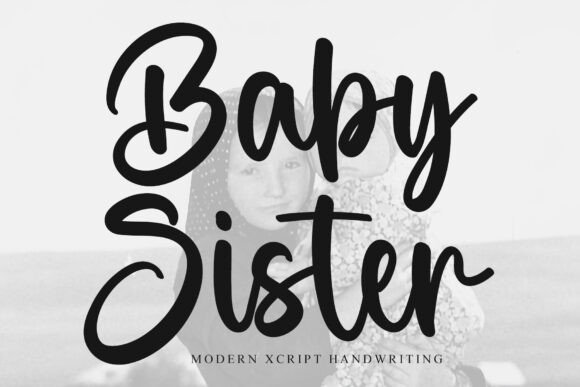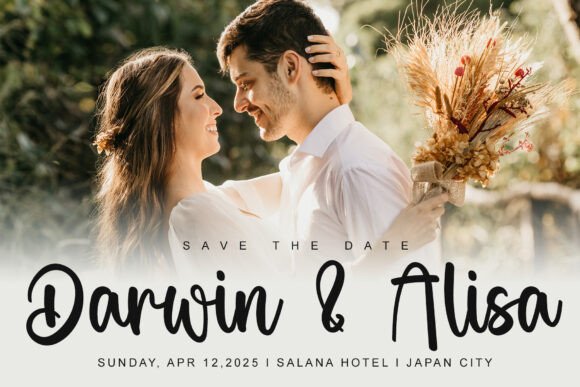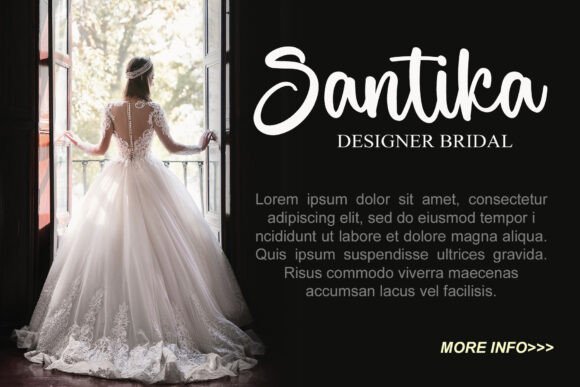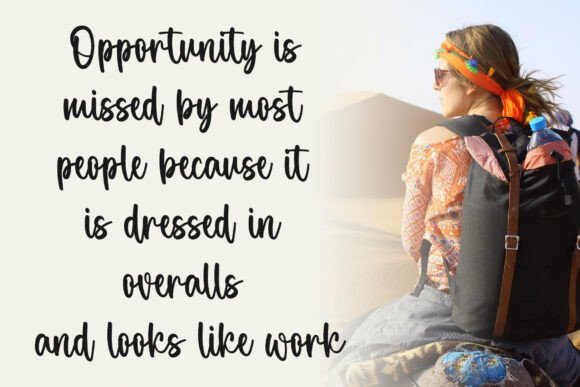
Baby Sister Font: Cute Handwritten Script for Wedding Design
About the Baby Sister Font
Make a bold statement with Baby Sister Font, a powerful and memorable font. Baby Sister is an extraordinary font that combines the beauty of handwritten strokes with a bold and playful display style. With its smooth curves, artistic flair, and charming personality, this font is perfect for adding a fun yet elegant touch to any creative project. Whether you need a whimsical, casual, or stylish look, Cherry Rainbows delivers a truly remarkable design experience.
Baby Sister’s bold, playful style shines in headlines, short-form text on posters, and branding elements such as logos or short taglines. It’s ideal for projects requiring a youthful, energetic feel—think children’s books, craft businesses, or playful food brands. However, its decorative nature makes it unsuitable for body copy or UI elements where readability is paramount. Long blocks of text set in Baby Sister would be difficult to read.
Pairing Baby Sister effectively requires a complementary font to balance its whimsical energy. A clean sans-serif like Lato or Open Sans provides excellent contrast and enhances readability when used alongside it for body text or supporting information. For a more sophisticated pairing, consider a classic serif like Garamond or a slightly more modern geometric sans-serif such as Montserrat.
Overall, Baby Sister possesses a friendly, approachable personality. Its hand-lettered quality imbues a sense of warmth and authenticity, while the bold strokes maintain a strong visual presence. This combination makes it well-suited for brands prioritizing a casual, yet memorable identity.
Baby Sister Font Usage Examples
Baby Sister Font Example